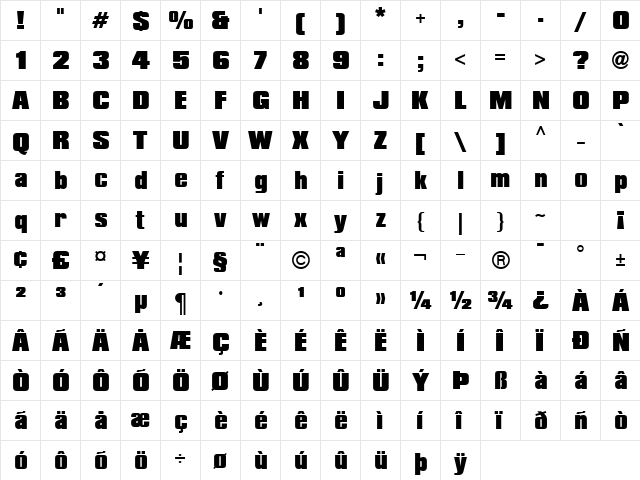
Compacta ICG Black
Design Context for Compacta ICG Typeface
Compacta ICG is a composed and adaptable typeface that performs quietly and consistently across a wide range of design contexts. Its narrow stance lets it pack a punch even in space-constrained designs.